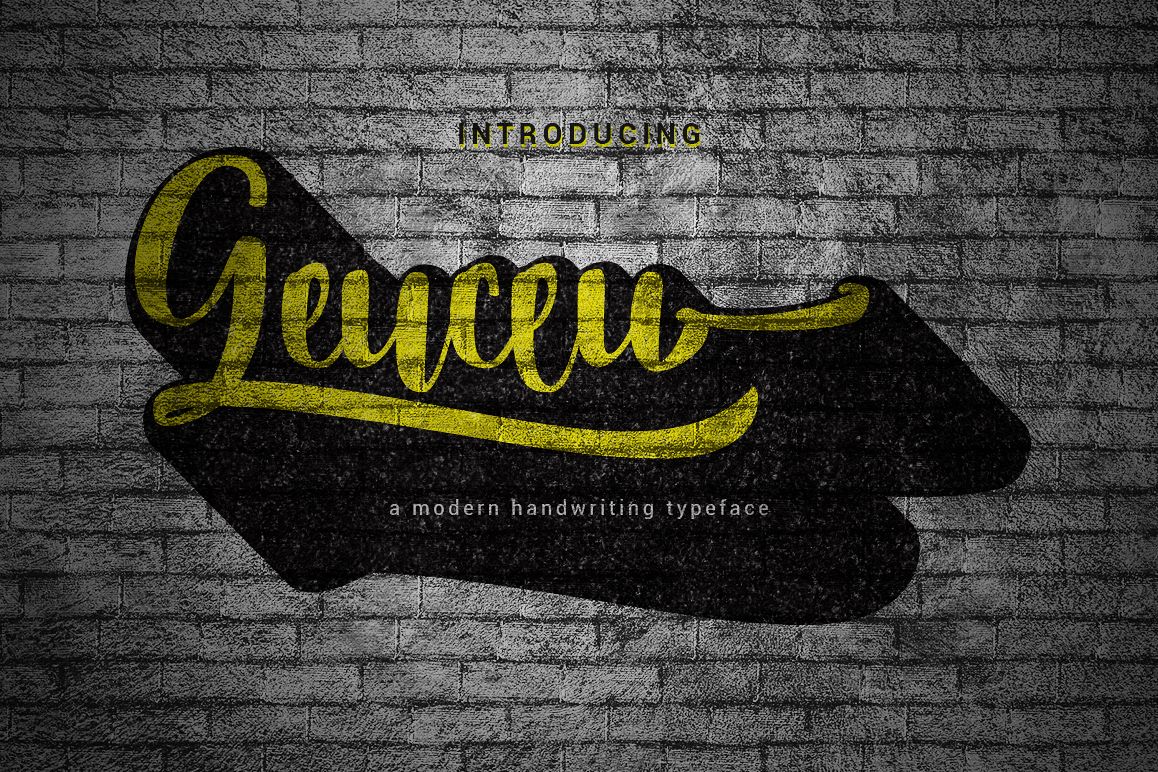
Geuceu Typeface
Geuceu-Regular
Comes with upper and lowercase characters, large set of punctuation glyphs, numerals, and supports international languages. Stylistic alternates for several key lower case characters are also available, accessible in the Adobe Illustrator Glyphs panel.
Geuceu Typeface example image 1
Geuceu Typeface